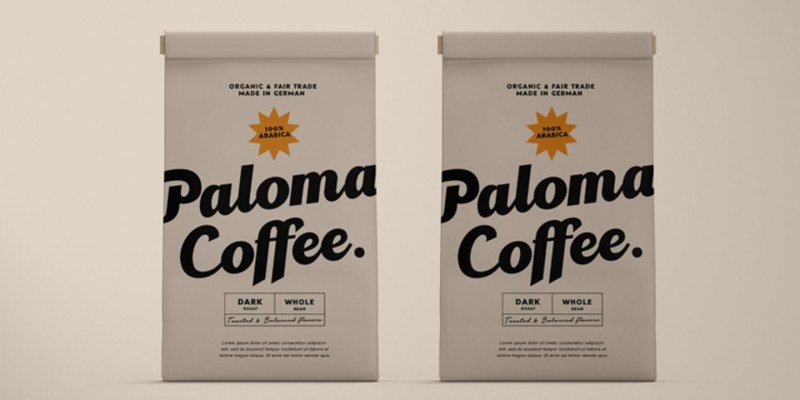
Dakota Motors Font Family
Dakota Motors is a bold script font. This retro font is expressive, and is constructed of sharp strokes and heavy letterforms. Use it for a cool logotype or headline to…
Dakota Motors is a bold script font. This retro font is expressive, and is constructed of sharp strokes and heavy letterforms. Use it for a cool logotype or headline to give your work that genuine look. The Dakota Motors family consists of four high-quality fonts: Regular, Italic, Bold and Bold Italic.
The font is built with advanced OpenType functionality and has a guaranteed top-notch quality, containing stylistic and contextual alternates, ligatures and more features; all to give you full control and customizability.
Where Dakota Motors Font Family works best
Dakota Motors Font Family brings a personal, handwritten warmth to invitations, menus and place cards.
Craft brands — coffee, cosmetics, bakery — use scripts like Dakota Motors Font Family for signature-style logos and labels.
Pair Dakota Motors Font Family with a plain sans for quotes, stories and Pinterest pins that feel handmade.
What is Dakota Motors Font Family good for?